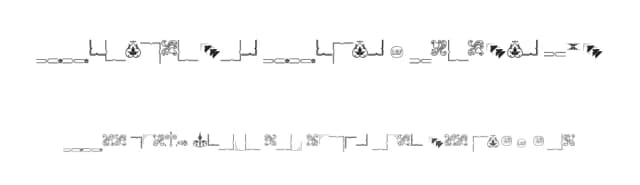
About Gimnasia Font
Gimnasia is a dingbat font designed by Manuel Lage. It includes 116 glyphs, a regular weight, TTF (TrueType) format, and 98 languages. Gimnasia is free to download; check the license details on this page before commercial use. Dingbat fonts like Gimnasia work best for icons, ornaments, bullet points, and decorative accents.
Gimnasia Font is a versatile dingbats font that works for both headings and body text. Pair it with a contrasting sans-serif or serif font to add visual interest and a clear distinction between titles and body copy.
Gimnasia Font
by Manuel Lage